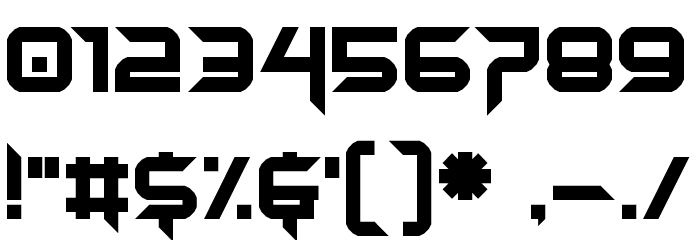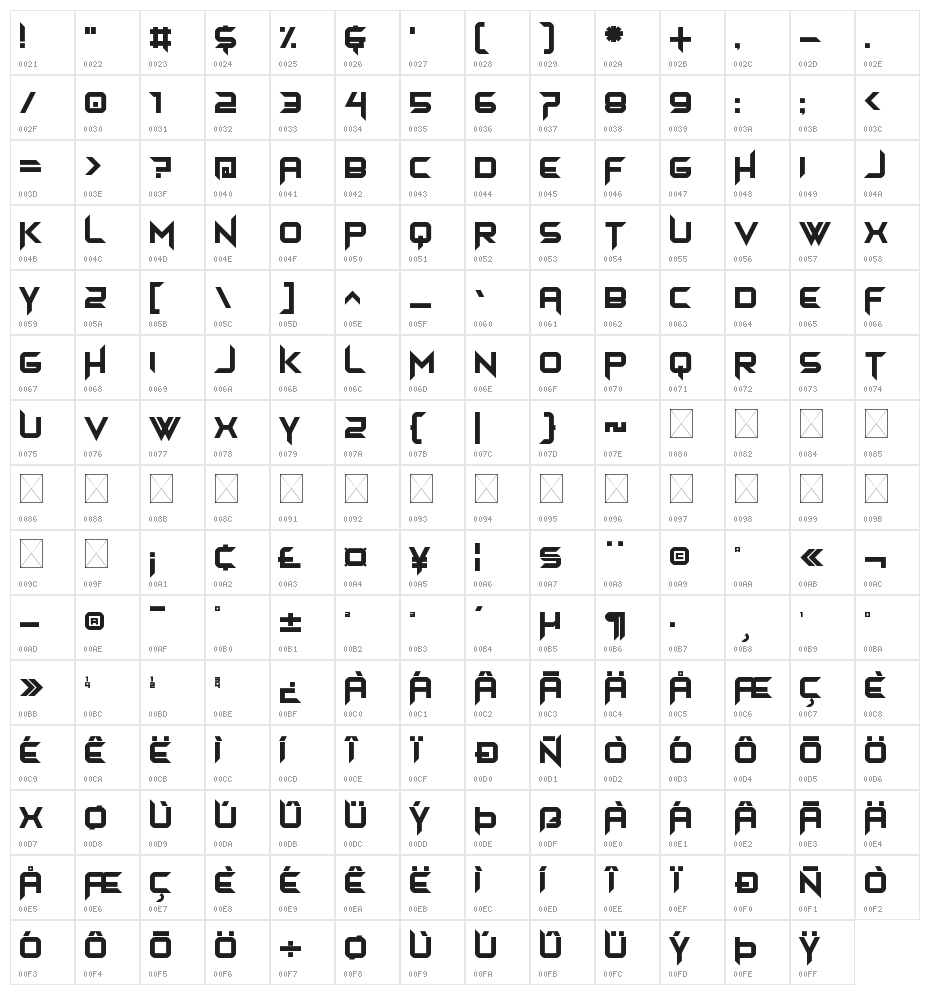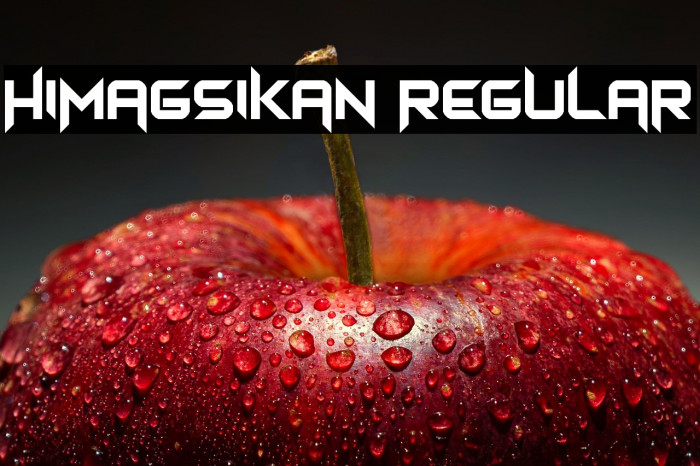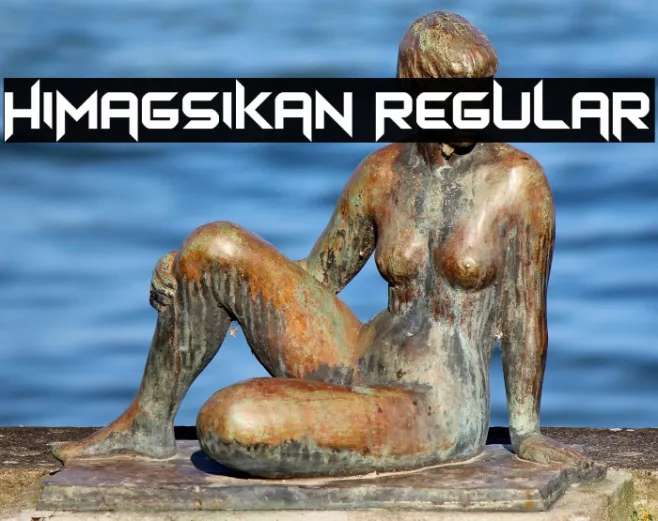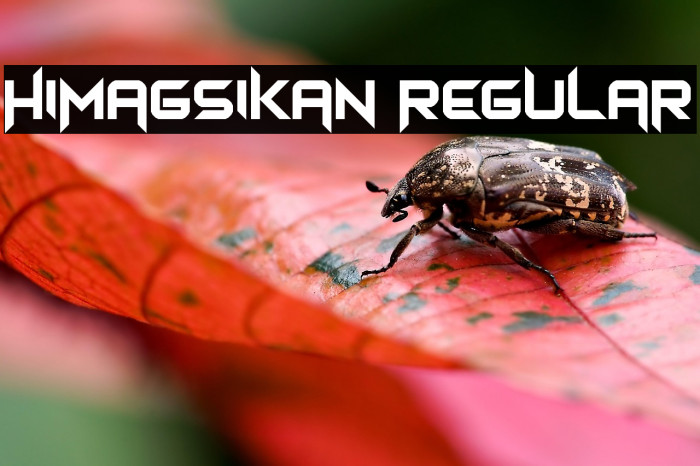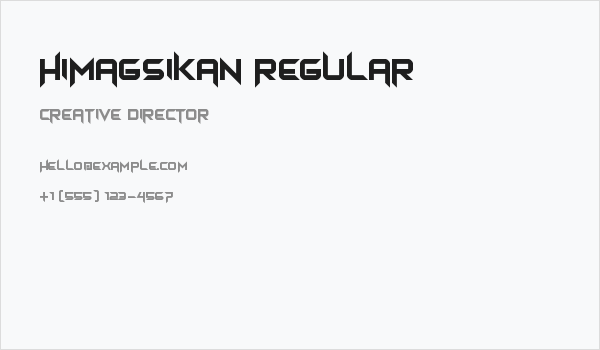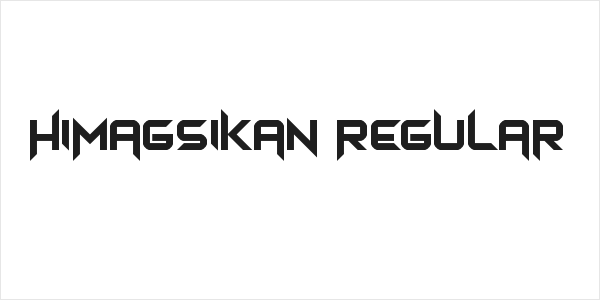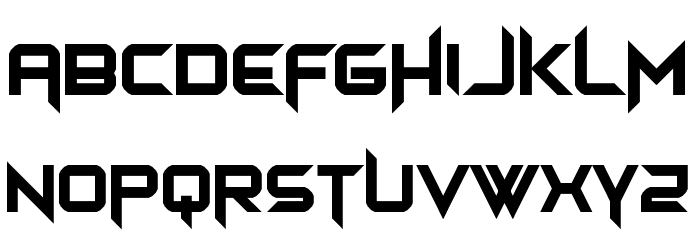
Himagsikan Regular Font
Himagsikan Regular Description
This font features a bold, angular design with sharp, geometric edges that give it a futuristic and aggressive appearance. The characters are constructed with a consistent thickness, creating a uniform look across all letters and numbers. The uppercase and lowercase letters share a similar style, maintaining the font's cohesive aesthetic. The numerals and special characters are designed to match the angular theme, making them stand out with their unique shapes. This font's striking design makes it ideal for projects that require a modern and edgy look.